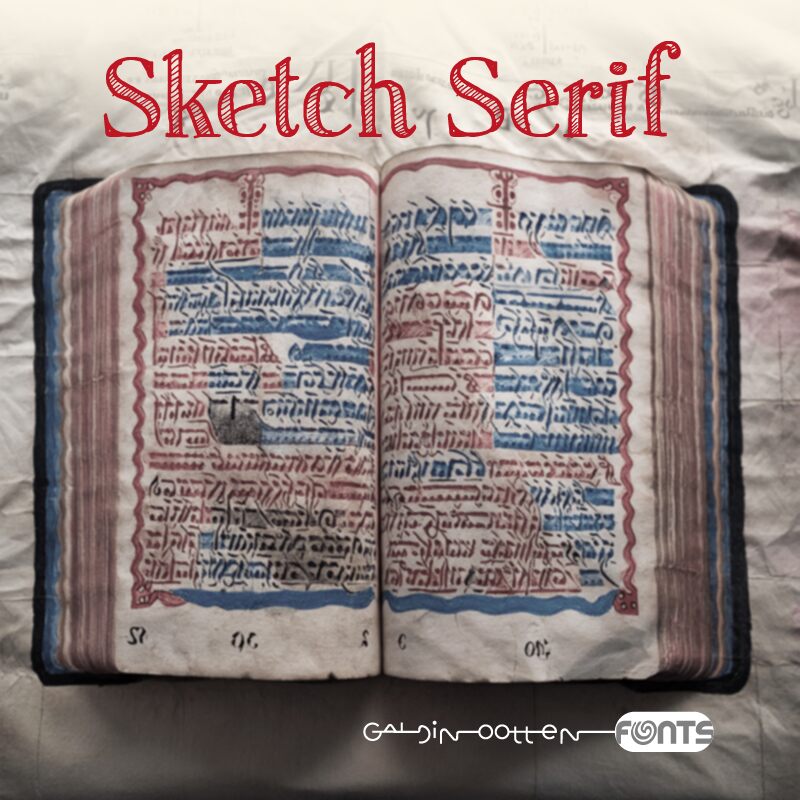
Sketch Serif
Sketch Serif, a captivating display font crafted by Galdino Otten Fonts, exudes a unique blend of artistry and refinement. With its bold, brush-like strokes and organic, handcrafted aesthetic, this font radiates a sense of creative expression and authenticity. The irregular, textured glyphs evoke a sense of spontaneity, while the harmonious letter forms and balanced composition lend a touch of sophistication.
This versatile font shines in a variety of design applications, from eye-catching headlines and impactful branding to captivating editorial layouts and artful packaging. Sketch Serif's versatility allows designers to craft compelling narratives, whether in the realm of lifestyle, fashion, or the arts, seamlessly blending tradition and modernity.